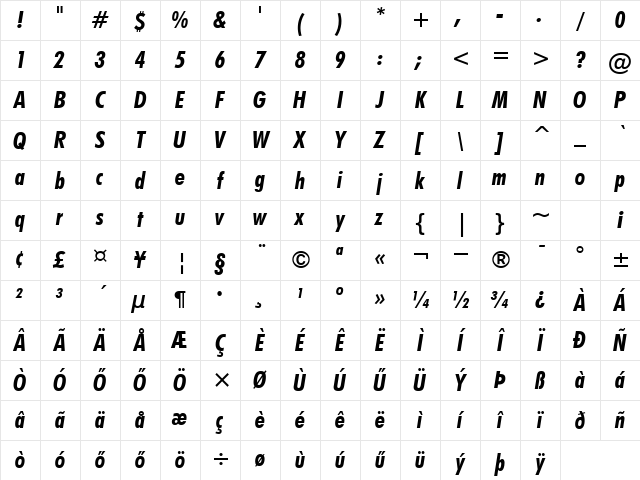
Complete H_Futura Bold Condensed BT Italic glyph index. Displaying only characters natively supported by H_Futura Bold Condensed BT Italic font.
H_Futura Bold Condensed BT has a distinctly futuristic character, with geometric precision and clean angles that feel at home in technology, gaming, and sci-fi contexts. The slanted form adds forward momentum and visual energy. Its bold stroke weight gives it real presence on the page. Its narrow stance lets it pack a punch even in space-constrained designs.